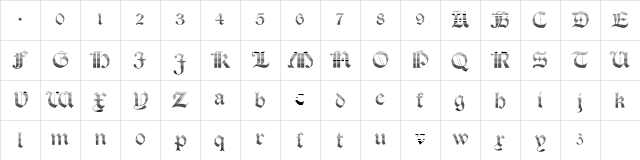
Complete Salterio Gradient Regular glyph index. Displaying only characters natively supported by Salterio Gradient Regular font.
Salterio Gradient is a composed and adaptable typeface that performs quietly and consistently across a wide range of design contexts.